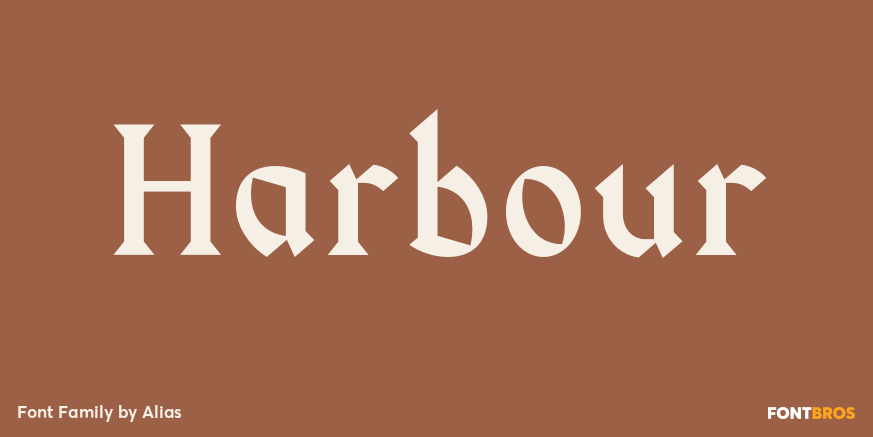
Harbour
About Harbour
Harbour is a clash of Latin and Germanic typestyles – two conflicting letterforms, culturally, politically and aesthetically. Latin letterforms have a geometric base, blackletter types are calligraphic. Harbour takes calligraphic forms that derive from…